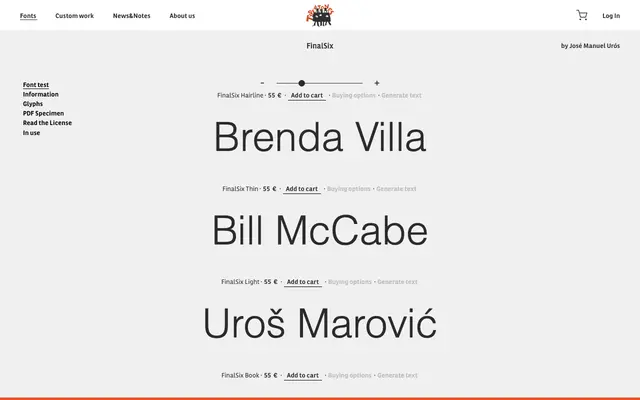
FinalSix
A sans-serif family by José Manuel Urós spanning nine weights from Hairline to Heavy, released through Type-ø-tones.
Designed by José Manuel Urós and published by Barcelona-based Type-ø-tones, FinalSix runs from Hairline through to Heavy across nine weights. The broad weight range makes it well suited to editorial and identity work where contrast between weights is needed. No italic or condensed cuts are listed, keeping the family focused on its upright weight spectrum.
The weight range and naming conventions suggest a contemporary sans-serif, likely grotesque or humanist in character, given the Type-ø-tones catalogue and the broad weight spectrum from Hairline to Heavy.